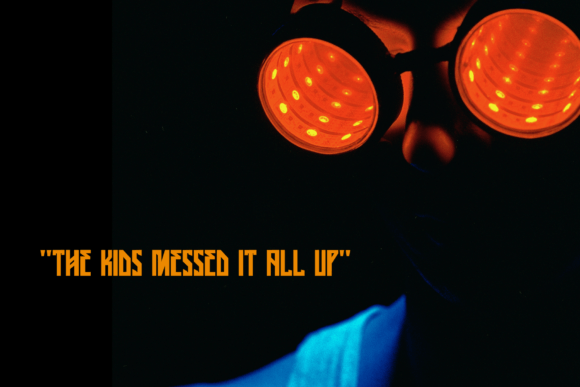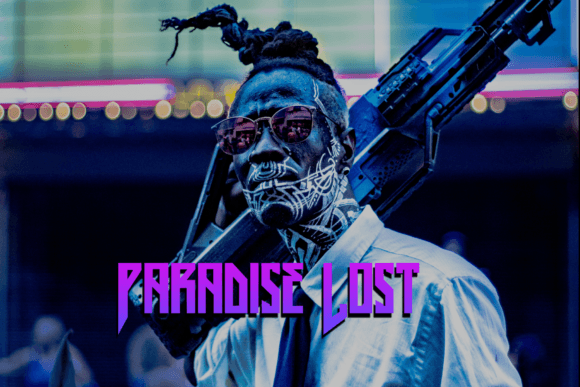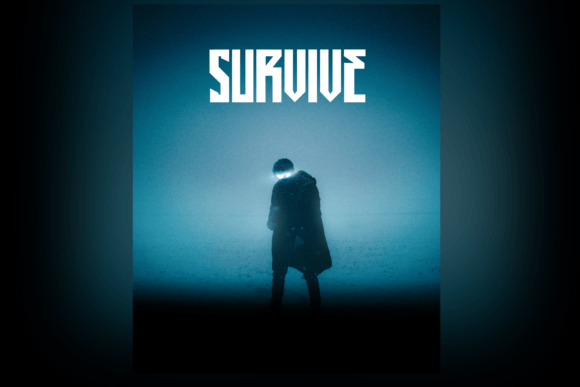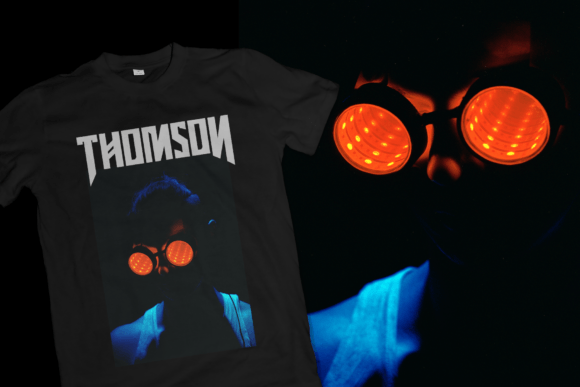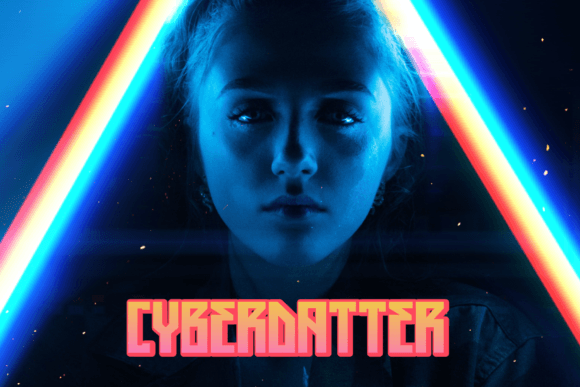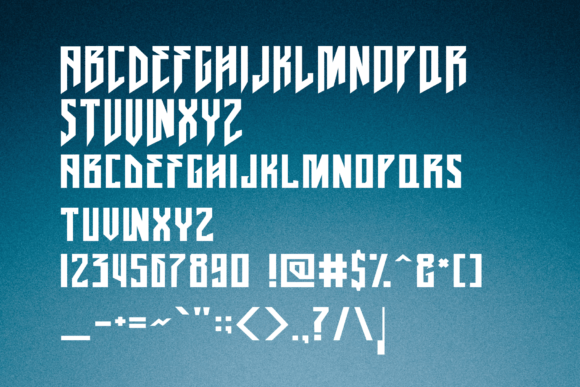
The Ultimate Font for Futuristic Designs: Cybersonr
Have you ever been in the middle of a design project, and suddenly, you just can’t seem to find the right font? I know I have. It was a few months ago when I was working on a cyberpunk-themed poster for a client. I wanted a font that would scream “futuristic” and “edgy,” but everything I tried seemed to fall flat. That’s when I stumbled upon Cybersonr, a bold, strong, and sharp display font that perfectly captured the essence of my project.
A Game-Changer for Designers and Crafters
Cybersonr is inspired by the futuristic style, making it a perfect match for creative craft themes like action, mecha, or cyberpunk. What sets it apart is its unique design, with bold and sharp edges that give it a distinctive look. The font also has a different shape, size, and design between uppercase and lowercase letters, which makes it easier to craft and create amazing work!
- ✨ Bold and Edgy Look: Cybersonr’s sharp edges and bold design make it perfect for creating eye-catching designs that demand attention.
- ✅ Versatility: This font can be used for a wide range of projects, from posters and flyers to logos and branding materials.
While Cybersonr is an amazing font, there are a few things to keep in mind:
⚠️ Legibility: Due to its bold and edgy design, Cybersonr may not be the best choice for body text or small font sizes.
The Backstory of Cybersonr
Cybersonr was designed with the futuristic style in mind. The designer wanted to create a font that would capture the essence of science fiction and cyberpunk themes. With its bold and sharp edges, Cybersonr is perfect for creating designs that demand attention and evoke a sense of futurism.
Q: What is Cybersonr?
A: Cybersonr is a bold, strong, and sharp display font inspired by the futuristic style.